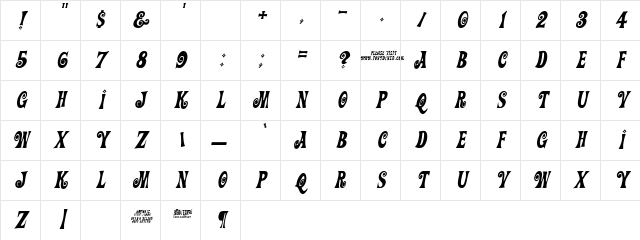
Complete Action Is JL Italic glyph index. Displaying only characters natively supported by Action Is JL Italic font.
Action Is JL is a composed and adaptable typeface that performs quietly and consistently across a wide range of design contexts. The slanted form adds forward momentum and visual energy.
Pro Tip: Use Action Is JL for emphasis, pull quotes, and subheadings where its slanted energy can add rhythm to the layout.